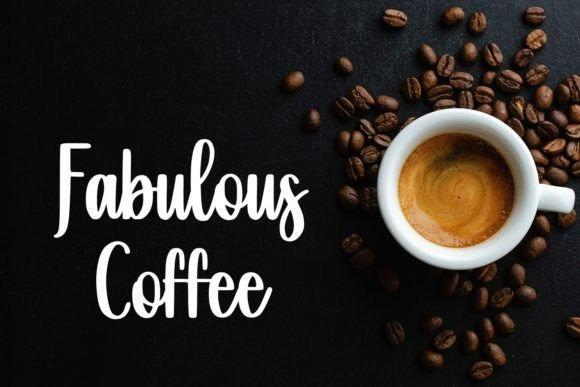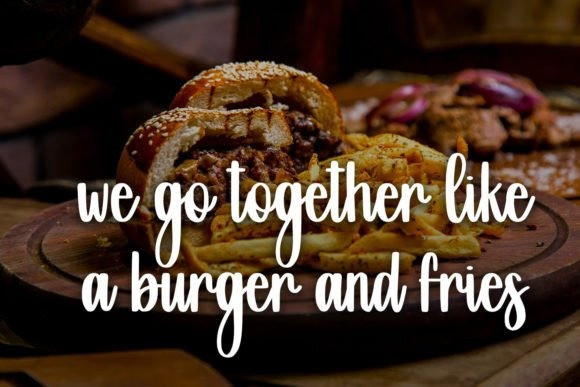
Tasty Tempeh Font
Tasty Tempeh Font is great for t-shirt designs, quotes, mugs, tote bag designs, cards, banners, social media, and anything of craft projects that needs a cute but simple touch.